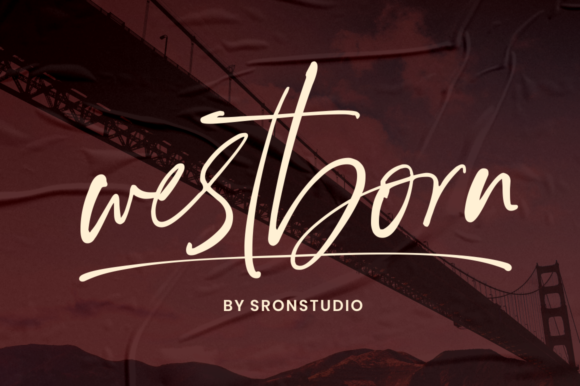
Introducing Westborn Font, the script font that's making waves in the design world. Its timeless handwritten style exudes elegance and sophistication, making it the perfect choice for creating logos, branding, and quotes that demand attention.
With Westborn, your designs will come alive! Each letter is crafted with a unique and beautiful touch, capturing the essence of handwritten artistry. Whether you're a seasoned designer or just starting out, Westborn is the font that will elevate your work to new heights.
Step into a world of creative possibilities with Westborn. Its modern and versatile style seamlessly adapts to a wide range of projects, from sleek logos to heartfelt quotes. Unleash your creativity and make a lasting impression with every design you create.
Immerse yourself in the charm and allure of Westborn. Its flowing lines and intricate details evoke a sense of elegance and refinement, adding a touch of luxury to your designs. Let Westborn be your muse and watch as your creations transform into masterpieces.
Don't settle for ordinary fonts. Embrace the beauty of Westborn and elevate your designs beyond the expected. Its timeless charm and versatility will captivate your audience, leaving them spellbound by your creations.
Discover the Westborn difference today and unlock a world of creative possibilities. Let your designs shine with the elegance and sophistication that only Westborn can provide.